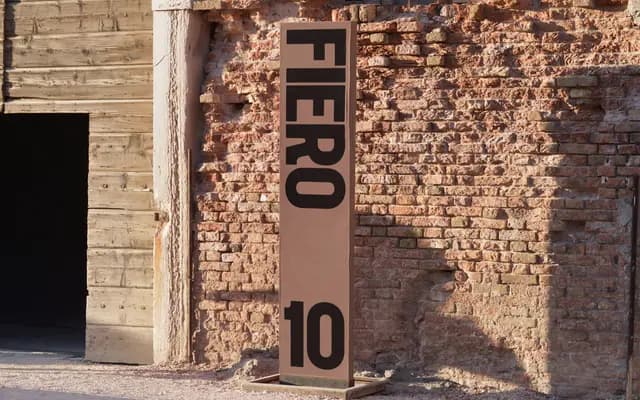
A heavy condensed display face with rounded corners and a geometric structure, built for bold headlines and logotype work.
Single-weight and unabashedly large, it pairs a tight condensed form with subtly rounded corners that stop the letterforms from feeling aggressive. The geometric backbone keeps proportions consistent and assertive across the 87-glyph character set, which covers standard Latin alongside Central European extensions. Best suited to short-form applications: campaign headlines, brand marks and poster titles where weight and impact are the brief.
A heavy, condensed geometric display typeface with rounded corners; the bold, concentrated letterforms and tight proportions are characteristic of display-only type intended for headlines and logotypes rather than text setting.